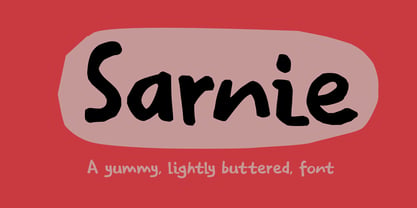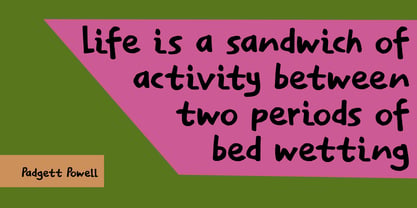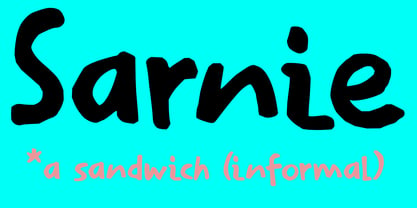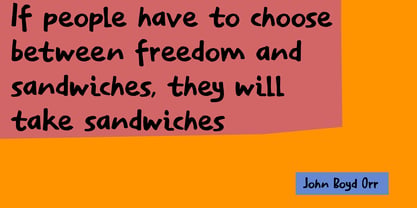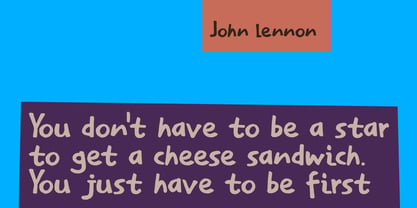
Sarnie Pro
I really like Great Britain and I absolutely love British slang. It is witty, a bit obscene at times and almost always conveys the message!
Sarnie means sandwich. I was making myself one when I finished this font.
Sarnie is a handmade font; I used a Sharpie pen to draw the glyphs and just let go. Use Sarnie for your posters, your product packaging or informal websites and maybe even for a nice deck of playing cards you are designing at this very moment!
Hanoded is run by Dutchman David Kerkhoff. His fonts are a mishmash of styles, as he just creates whatever pops into his head. You will find a lot of brush fonts in his collection, as his favourite tools are brushes and Chinese ink, with cartoon style fonts and script fonts complementing his repertoire. Aside from making fonts, David occasionally guides tours in far-flung places, renovates his '30's house and tries reasoning with his wife and (teenage) kids. Not an easy task!